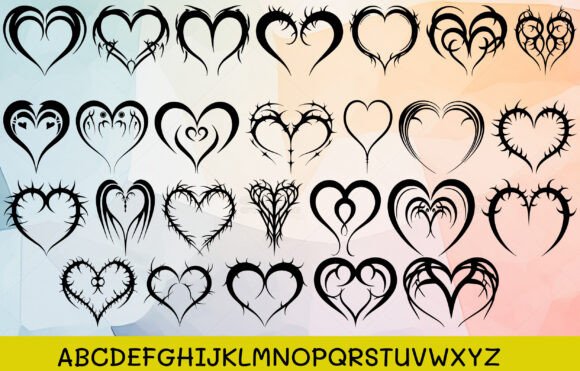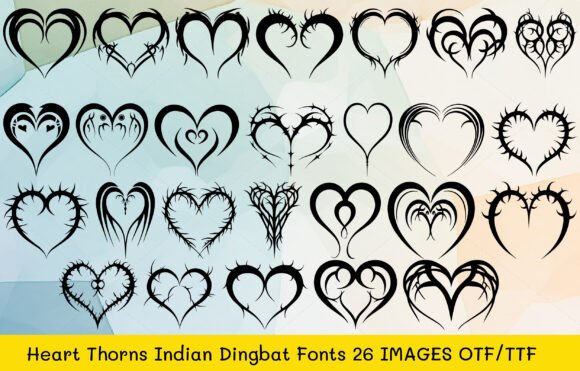
Introducing Heart Thorns Indian Font: A Unique Dingbat Font for Creative Projects
Are you a designer or crafter looking for a unique and creative way to add a touch of personality to your projects? Look no further than the Heart Thorns Indian Font, a stunning dingbat font featuring 26 unique heart thorn designs, each corresponding to a letter from A to Z. This versatile font set is perfect for a wide range of creative projects, from handmade cards and invitations to digital graphics and branding materials.
What is Heart Thorns Indian Font?
Heart Thorns Indian Font is a carefully crafted dingbat font that combines the beauty of heart-shaped thorns with the elegance of Indian-inspired designs. The font set includes 26 unique characters, each representing a letter of the alphabet, from A to Z. These intricate designs are perfect for adding a touch of whimsy and romance to any project.
Key Features of Heart Thorns Indian Font
- 26 Unique Designs: Each letter of the alphabet, from A to Z, features a unique heart thorn design, allowing you to create custom text with a cohesive and stylish look.
Heart Thorns Indian Font is a unique and versatile dingbat font that is perfect for designers and crafters looking to add a touch of personality to their creative projects. With its 26 unique heart thorn designs, OTF and TTF file formats, and ease of use, this font set is a must-have for anyone looking to create custom and stylish text. Whether you’re working on handmade cards, digital graphics, or branding materials, Heart Thorns Indian Font is sure to inspire your creativity and take your projects to the next level.